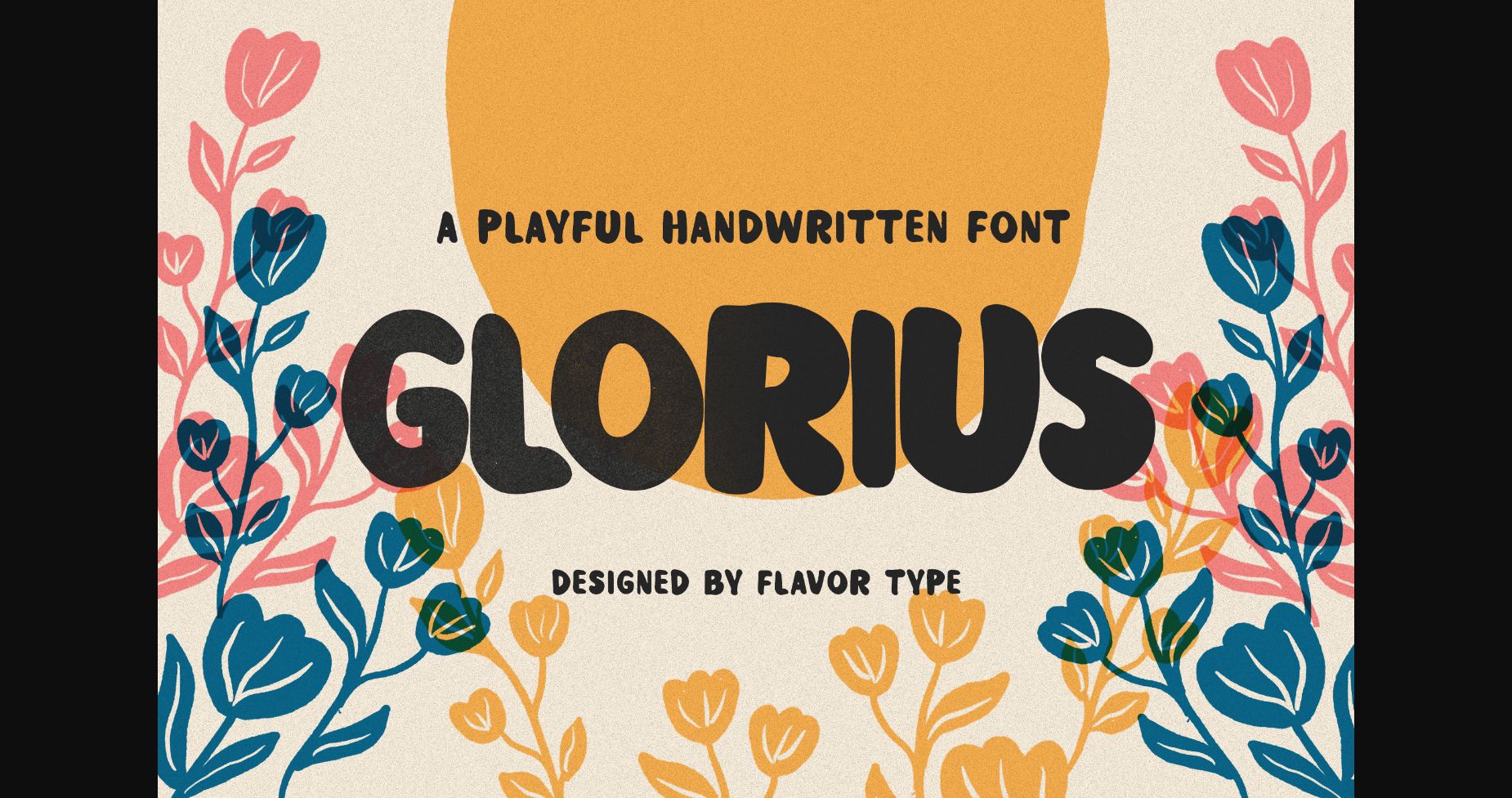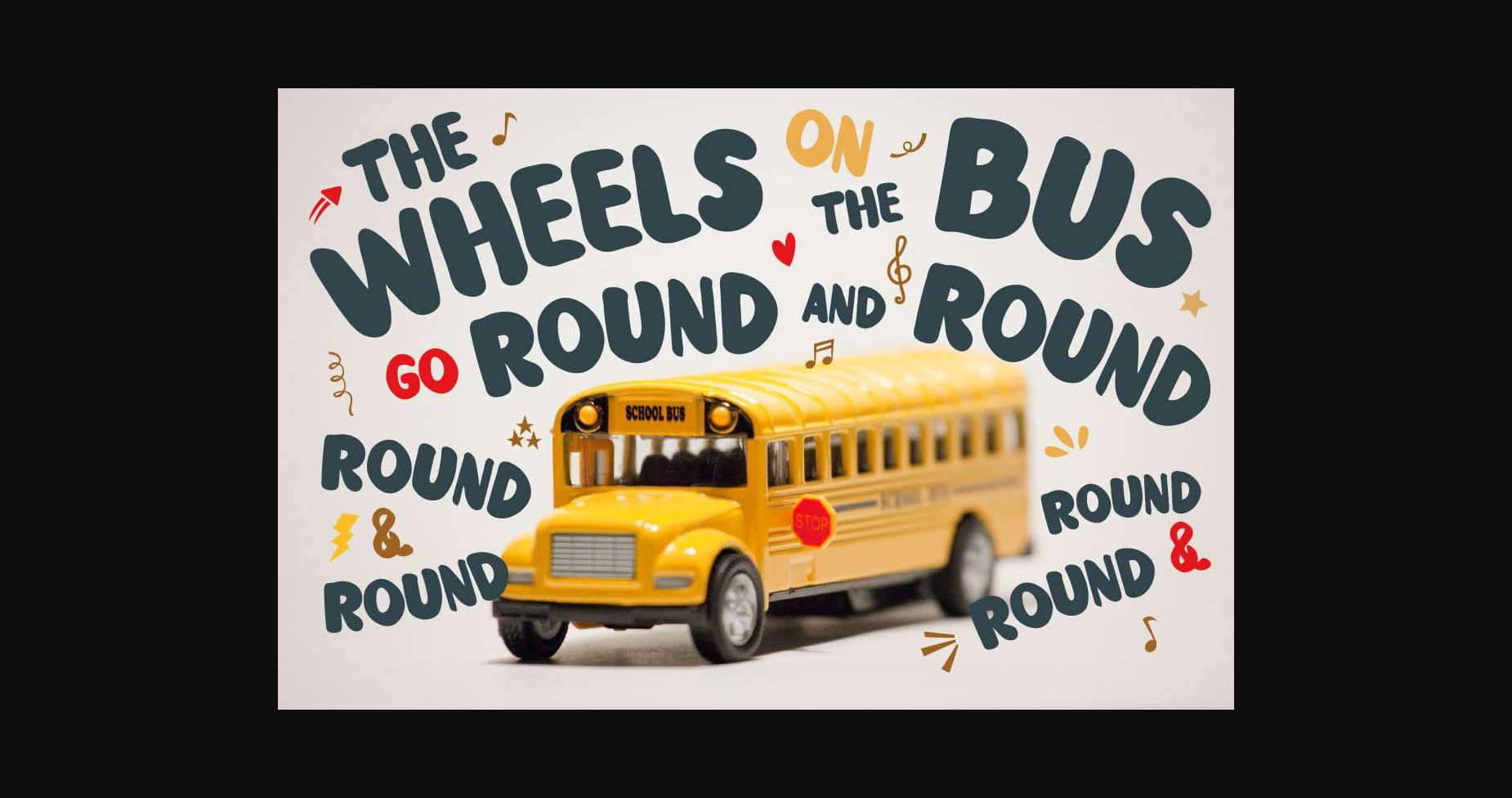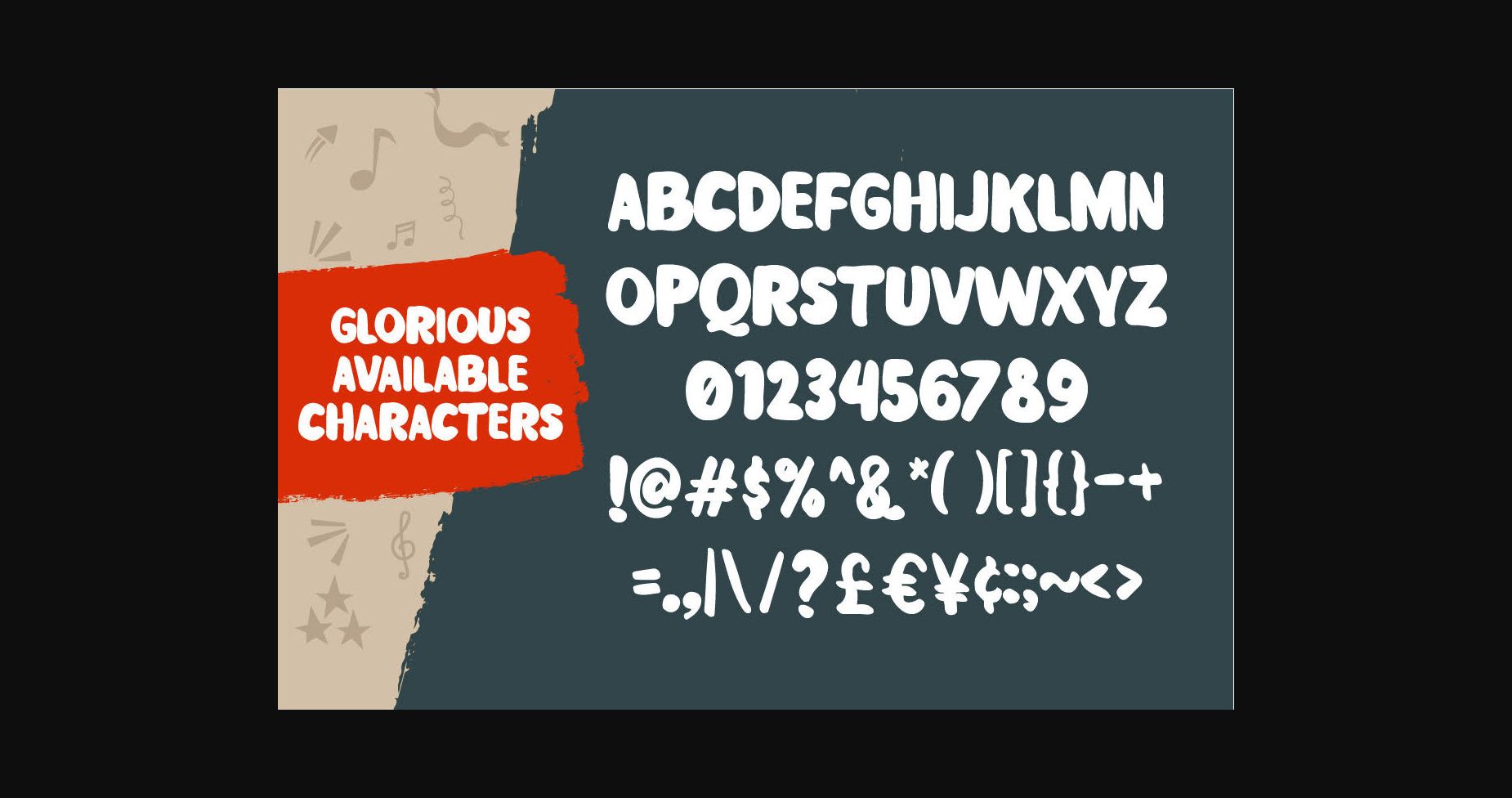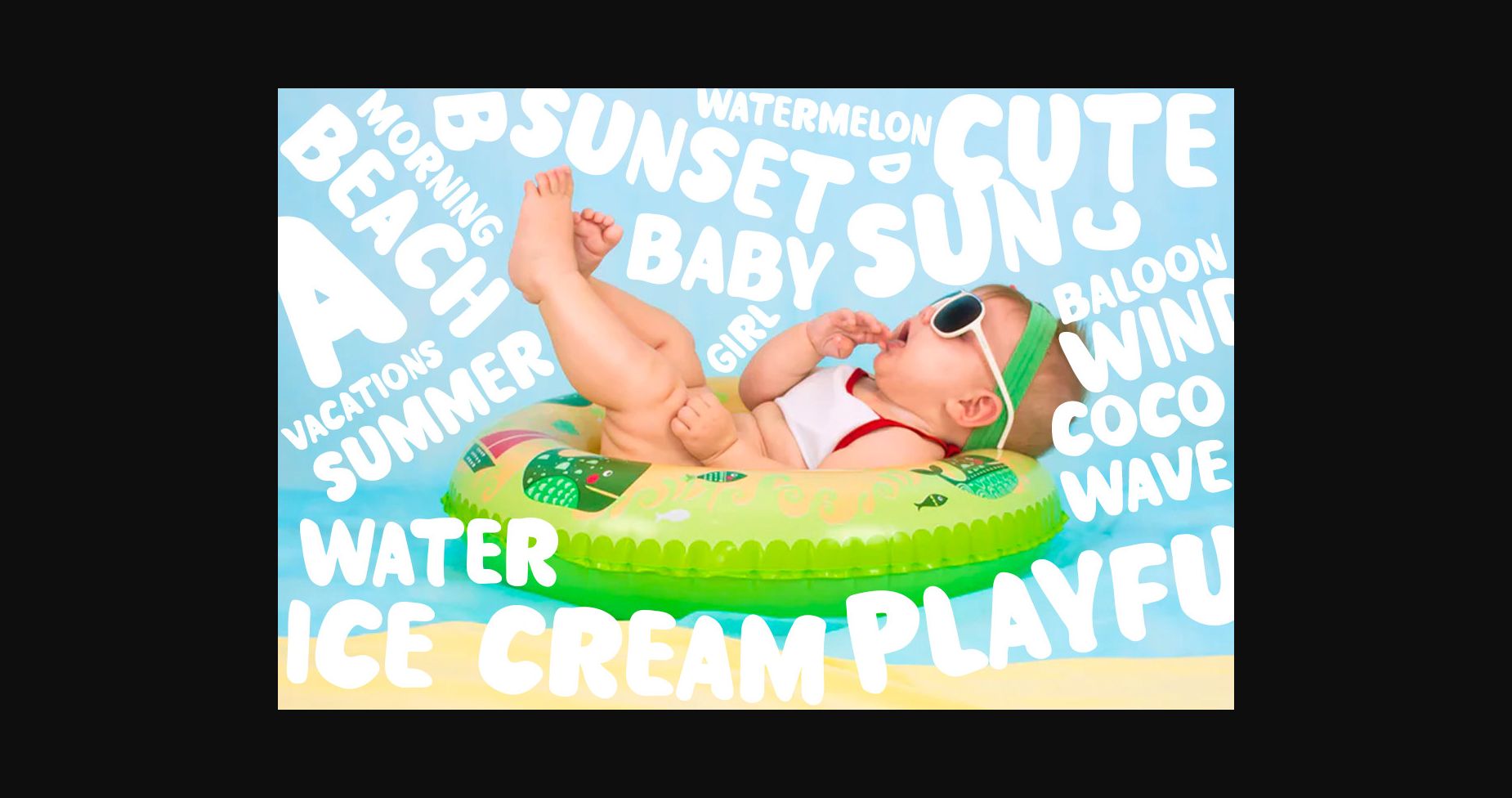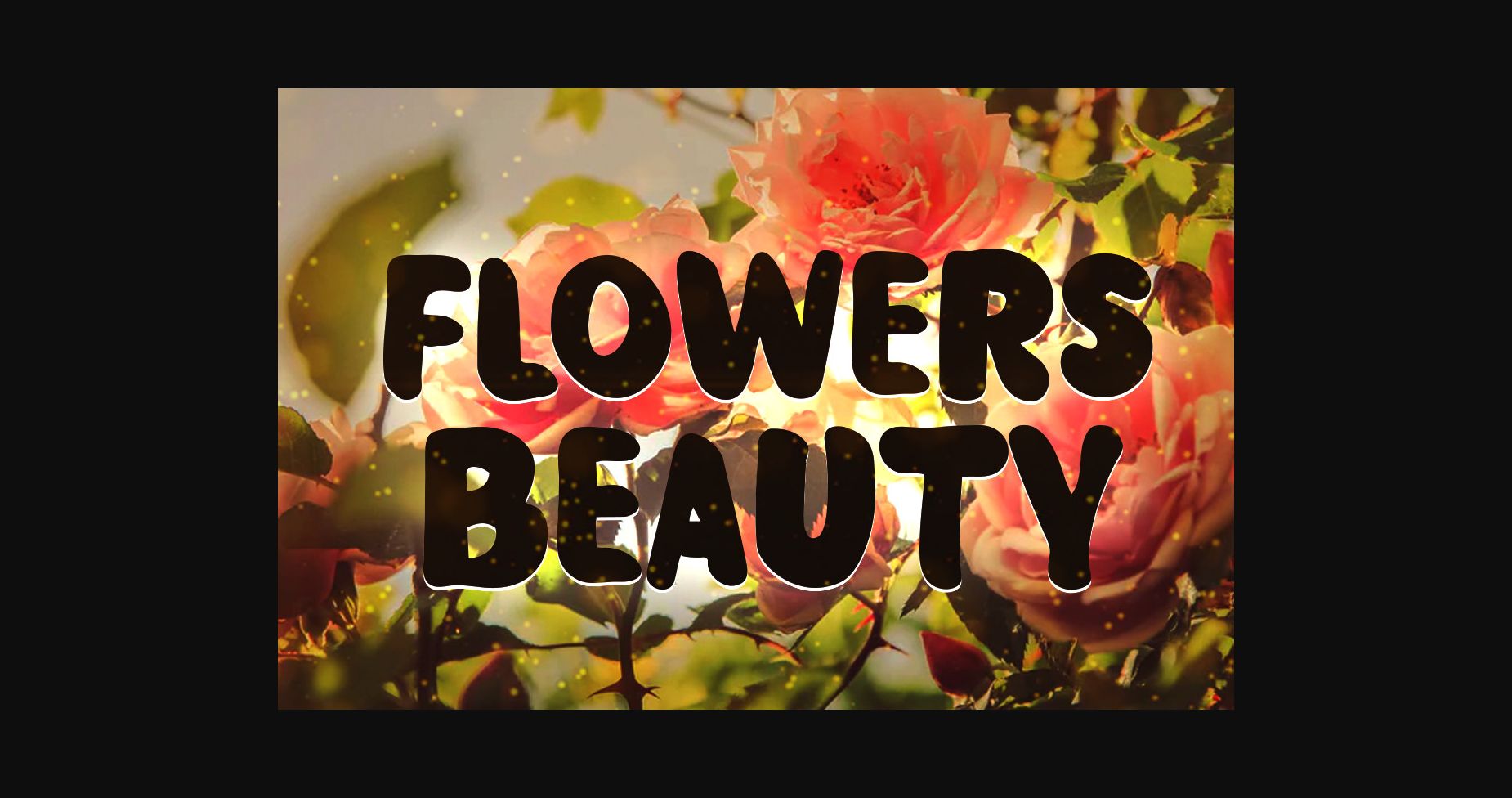
Glorius Font
About Glorius Font
Glorius is a cool and friendly display font. It embodies playfulness and authenticity and is the perfect choice for any children activity or school project. Add this chunky lettered font to your designs and notice how it makes them come alive!